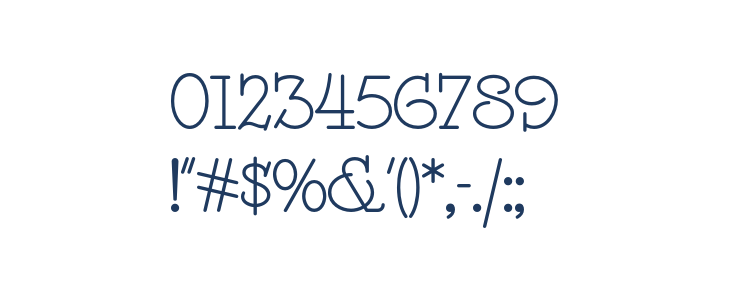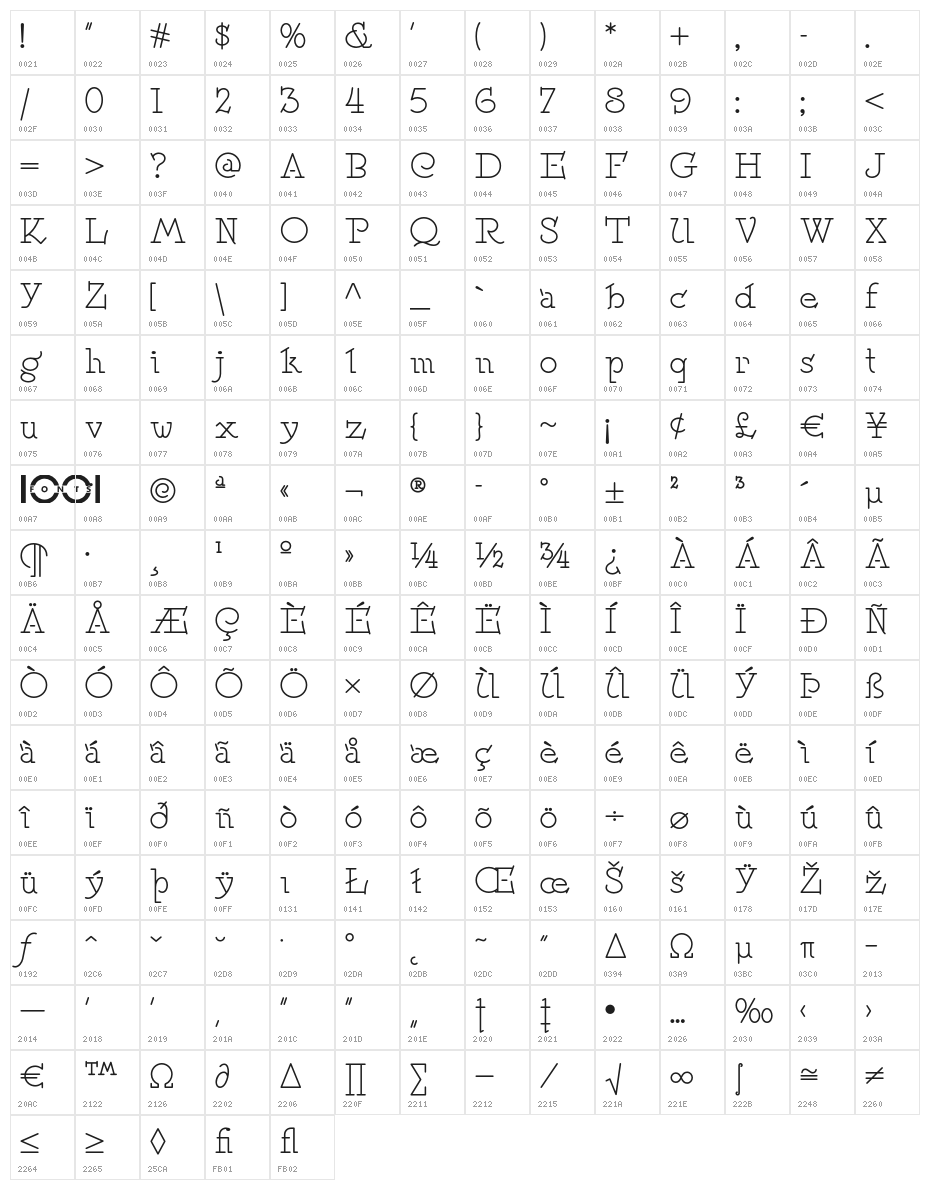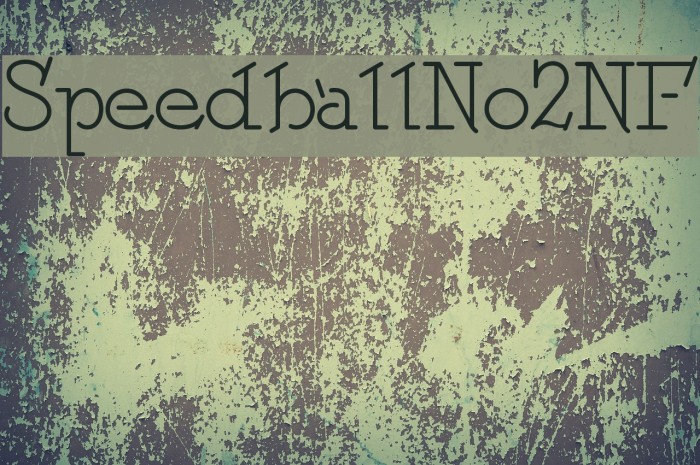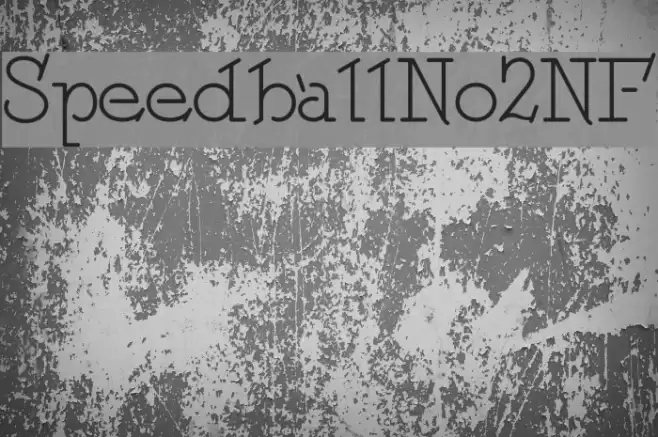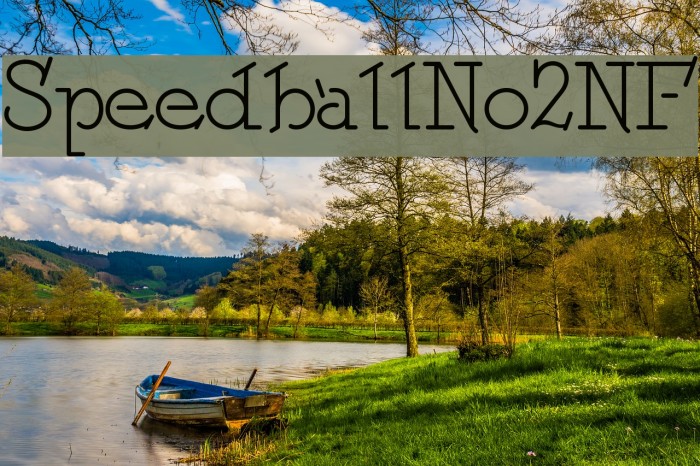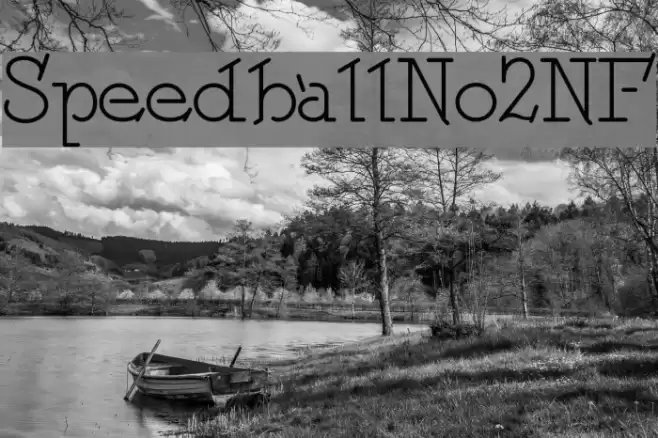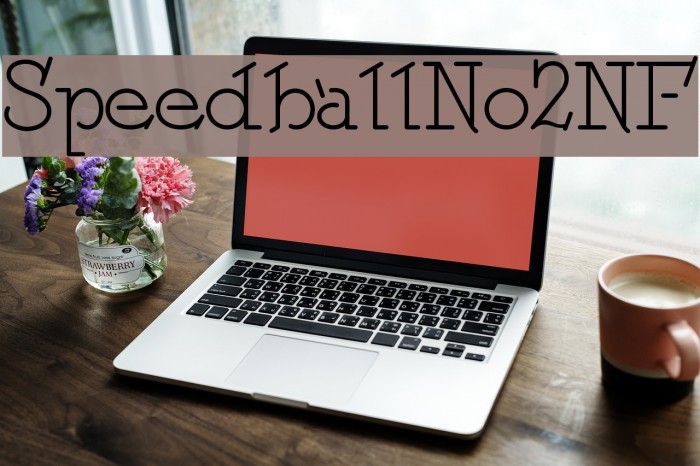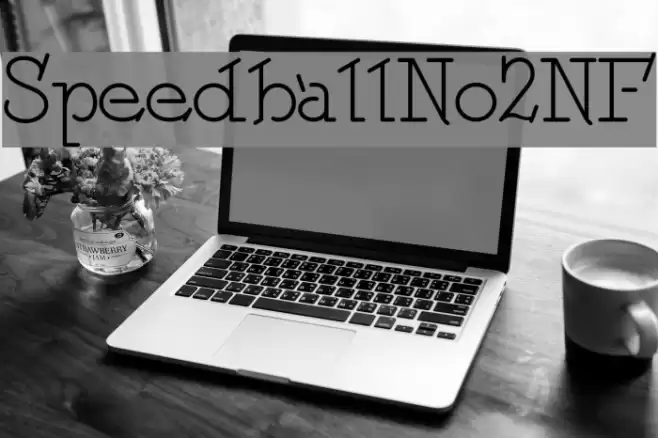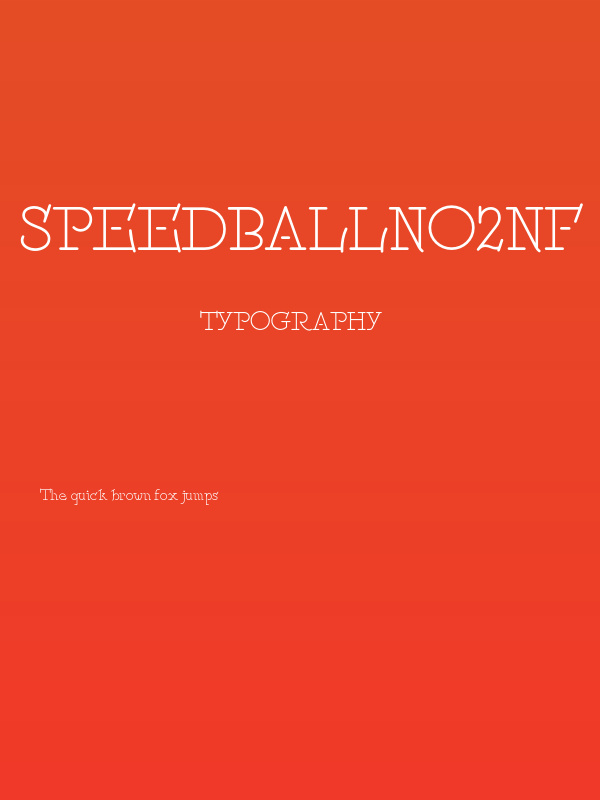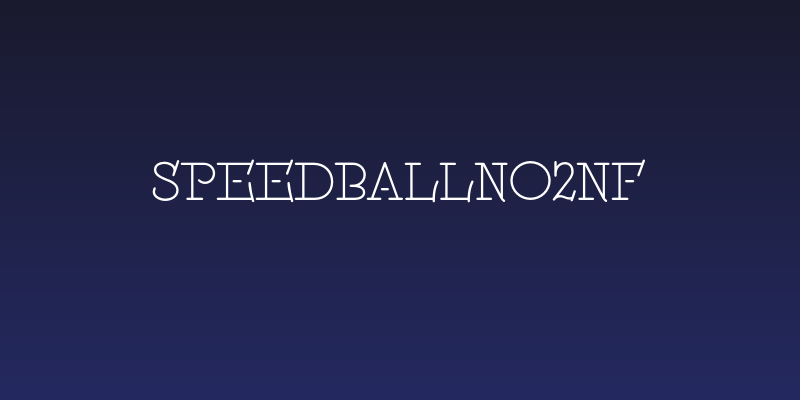
SpeedballNo2NF Font
SpeedballNo2NF Description
This font features a unique blend of geometric and decorative elements, characterized by its rounded serifs and consistent stroke width. The uppercase letters exhibit a playful yet structured design, while the lowercase letters maintain a harmonious flow. Numbers are clear and distinct, making them easily readable. Special characters are creatively styled, adding a touch of whimsy to the overall appearance. The font's design is both modern and retro, making it versatile for various creative applications.